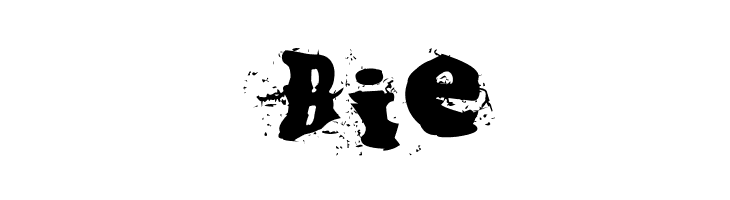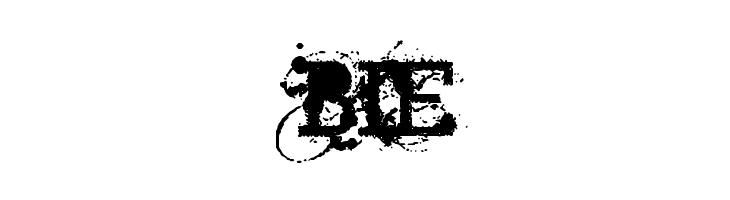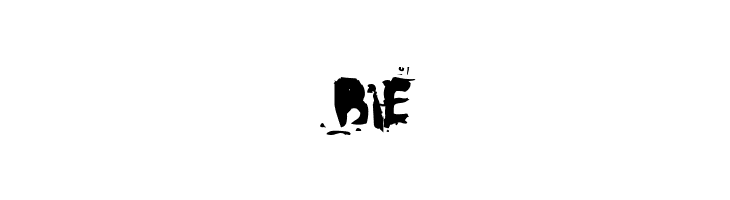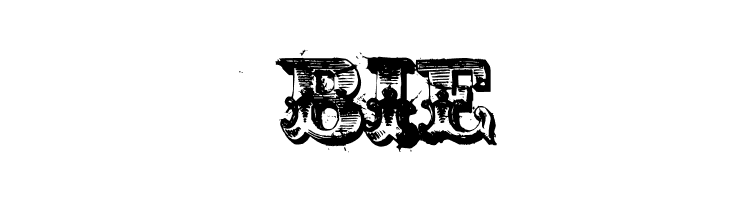
( Fonts by Clearlight Fonts - Brad Barham )
A distressed, grungy font with irregular, jagged edges and bold strokes.
A bold, distressed font with a grunge aesthetic and rough edges.
( Fonts by Daniel Gauthier )
A bold, distressed font with a grunge, graffiti-inspired style.
( Fonts by Barry Bujol - theoriginal19.blogspot.com )
A bold, decorative font with a grunge and distressed style.
( Fonts by Fabrika De Typos - Marcio Hirosse - fabrikadetypos.blogspot.com )
A bold, grungy font with a distressed, brush-painted appearance.
( Fonts by Rob Dobi - Toxic Type - www.dobi.nu )
A bold, grungy, and decorative font with intricate details and distressed textures.